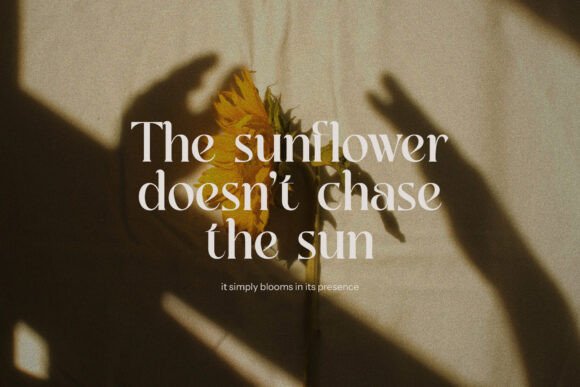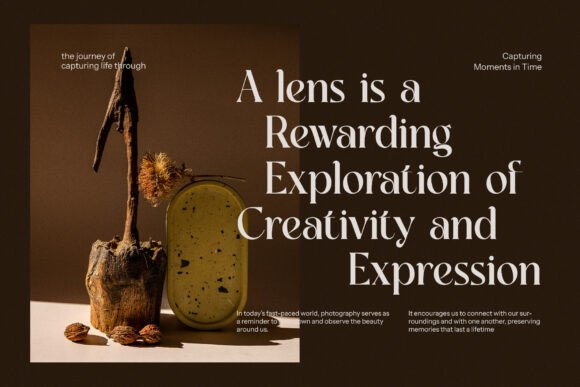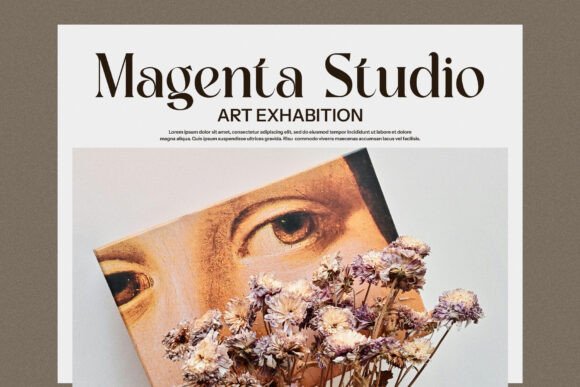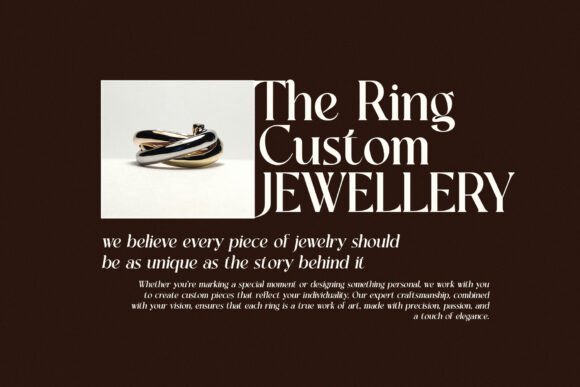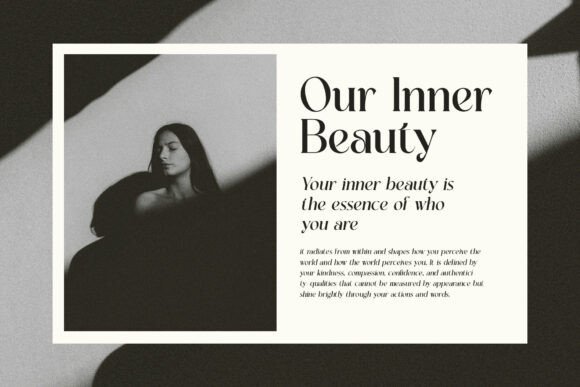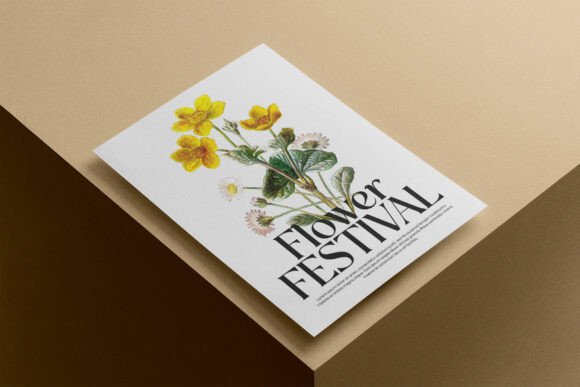
Introduction to Massive Font
Have you ever stumbled upon the perfect design element that elevates your entire creative project? For designers, this moment is pure magic. It’s the difference between a good design and a great one. Recently, I discovered the Massive Font, a stunning serif font that has been a game-changer for my branding and logo designs. With its elegant and classy style, this font is perfect for high-end projects that require sophistication and luxury.
As a design resource, the Massive Font offers a wide range of beautiful and unique ligature and alternate options, making it an ideal choice for various creative projects. Whether you’re working on a branding project, social media post, advertisement, or product packaging, this font is sure to impress. With its high quality and versatility, it’s no wonder why designers are falling in love with the Massive Font.
Key Features of Massive Font
- High-quality design resource with a wide range of creative project possibilities
- Comes in multiple sizes, from small to massive, allowing for customization to suit any creative project
- Perfect for designers, artists, and marketers seeking a reliable, high-quality design resource
Honest Review: Massive Font
I recently came across the Massive Font and I must say it’s been a game-changer for my creative projects. As a designer, I’m always on the lookout for high-quality design resources that can elevate my work, and Massive Font definitely delivers.
- ✨ High-quality design with precise details
- ✨ Wide range of font styles and sizes
- ✨ Transparent background, making it easy to customize
- ⚠️ Limited font combinations available
- ⚠️ Some font styles may not be suitable for all creative projects
Massive Font is a high-quality design resource ideal for creative projects. This font offers a unique and visually striking style, perfect for making a statement in your designs.
Tips for Getting the Most Out of Massive Font
For best results, use Massive Font on a transparent background to create a striking visual effect. You can also combine it with other design elements to create a unique and eye-catching design.
Massive Font is ideal for use in headings, titles, and other prominent design elements. It’s perfect for creating a bold and attention-grabbing visual style in your designs.
Yes, Massive Font is designed with a transparent background, making it easy to use in various design scenarios. This feature allows designers to combine the font with other design elements, such as images or shapes, to create unique and visually appealing designs.